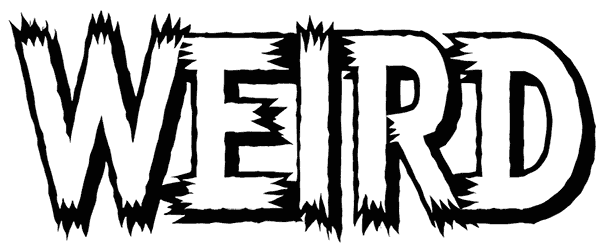
Weird Font
Today’s font can be a good choice for carpentry signs and Halloween posters! As the name shows, the Weird font is designed with weirdly pointy and spikey wooden pieces that give off an intense, spooky, and exciting vibe.
You can use it to write movie titles and posters, cartoon names, vacation and traveling flyers, and channel banners. This creepy font is an all-caps one and has shallow parts in its center.